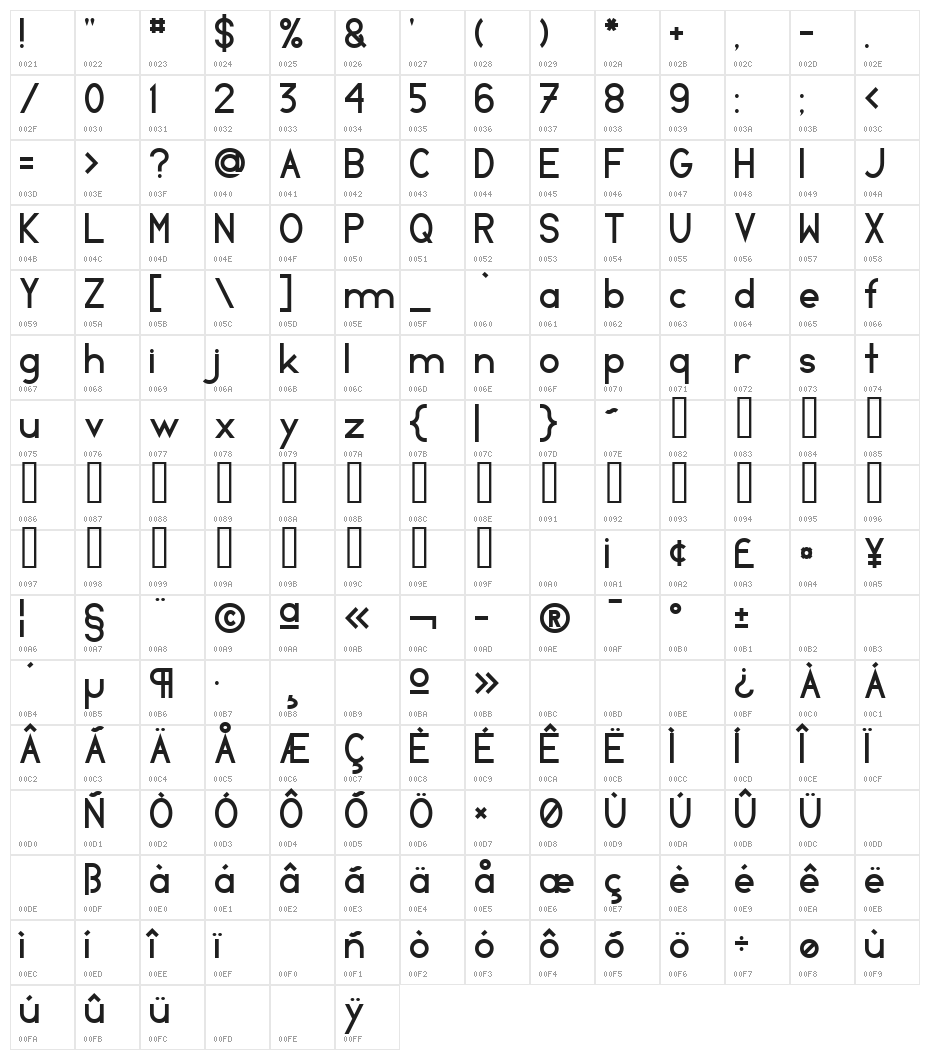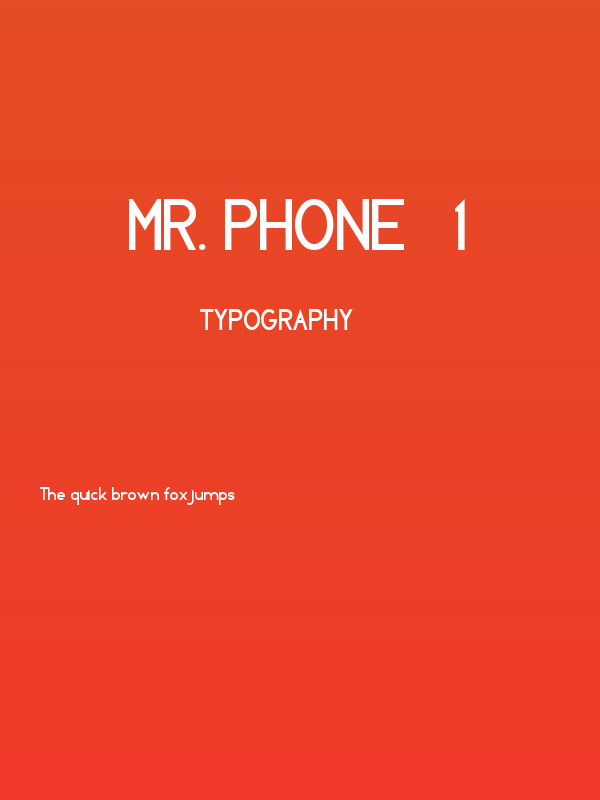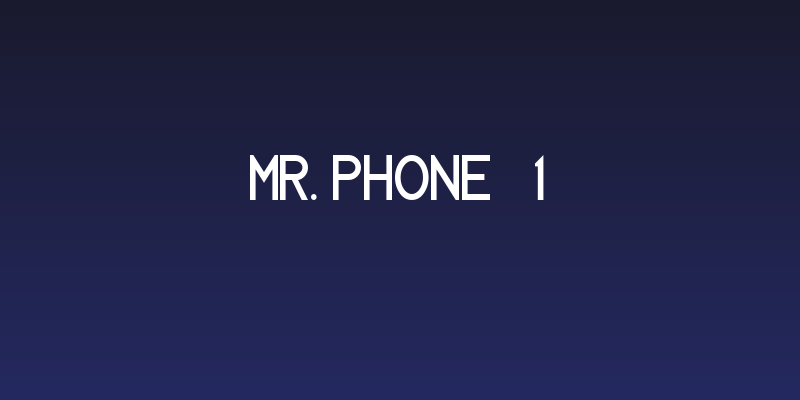
MR. PHONE 1 Font
MR. PHONE 1 Description
This font features a clean and modern sans-serif design with uniform stroke widths, giving it a sleek and contemporary appearance. The characters are well-balanced with a geometric structure, providing excellent readability. Its simplicity and clarity make it versatile for various applications. The uppercase letters are bold and assertive, while the lowercase letters maintain a consistent style that complements the overall design. The numerals are clear and distinct, ensuring they stand out in any context. Special characters are designed with the same attention to detail, maintaining the font's cohesive look.
Use CaseHeadlines, Logos, Digital Interfaces
Proposed ProjectsIdeal for branding, advertising, digital interfaces, and editorial design projects.